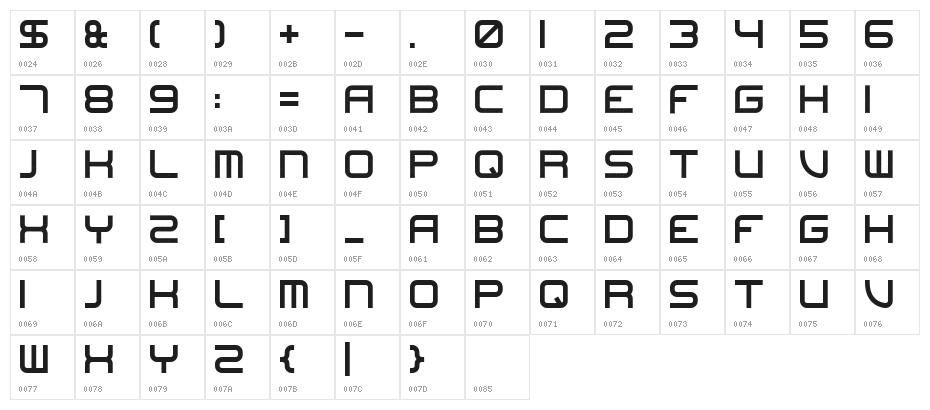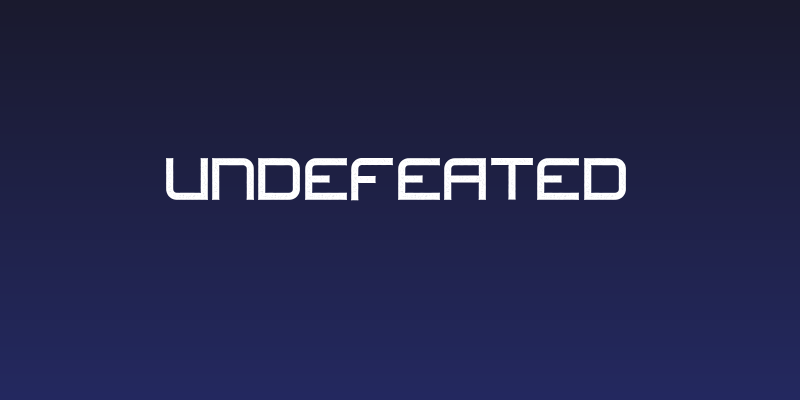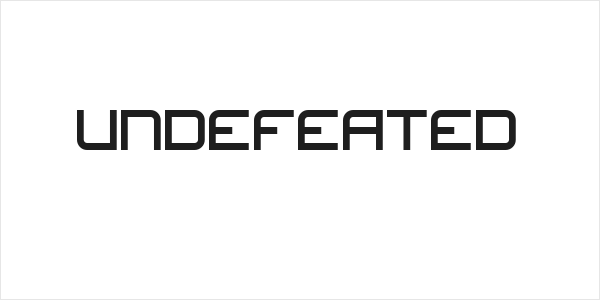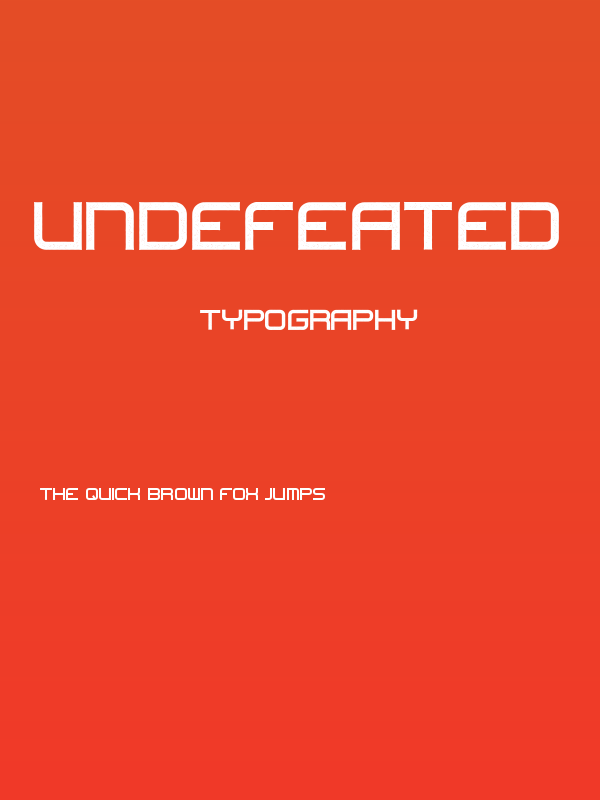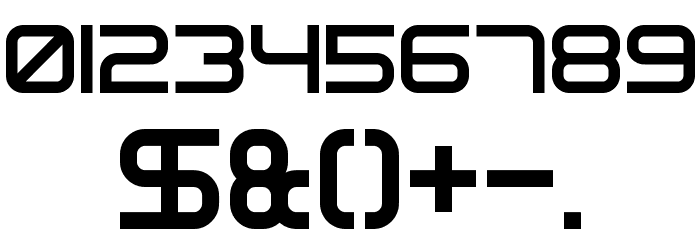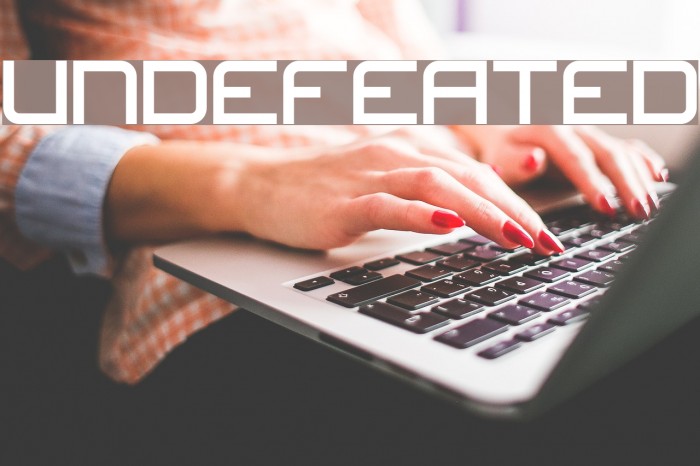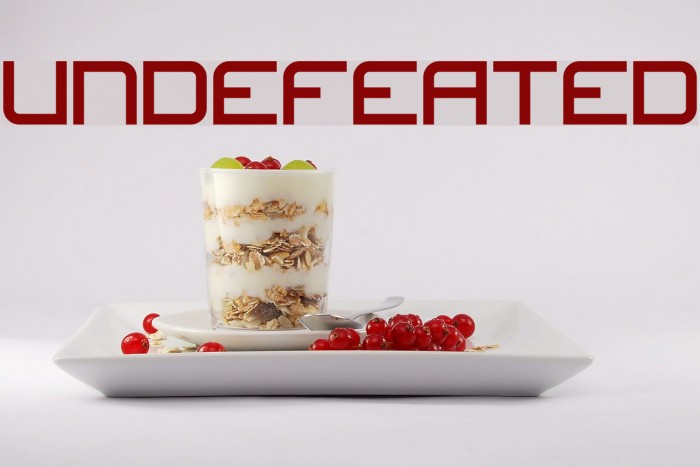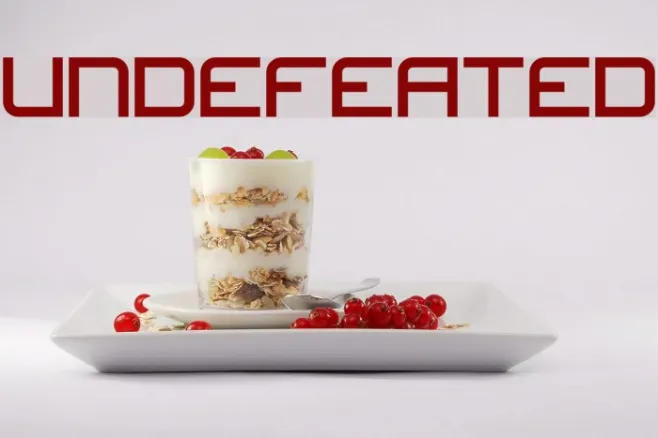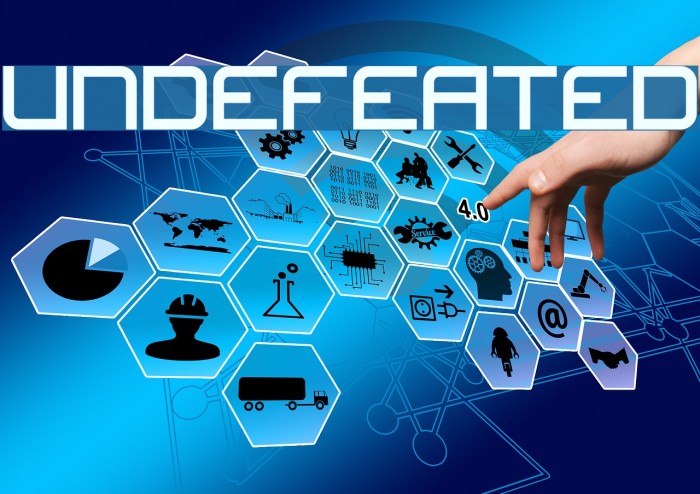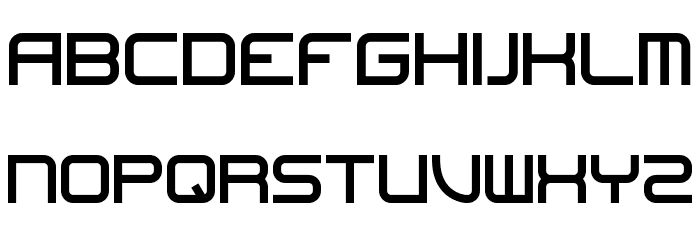
undefeated Font
undefeated Description
This font features a modern, geometric design with a strong emphasis on clean lines and uniformity. The characters are constructed with consistent stroke widths, creating a balanced and cohesive appearance. The uppercase letters are bold and assertive, while the lowercase letters maintain the same structural integrity, offering a seamless transition between cases. The numerals are distinct and easily readable, complementing the overall style of the font. Special characters are designed to match the geometric theme, ensuring visual harmony across all elements. This font is ideal for projects that require a contemporary and professional look, such as branding, advertising, and digital interfaces.
| Use Case | Headlines, Logos, Digital Interfaces |
| Proposed Projects | Ideal for branding, advertising, digital interfaces, and modern design projects. |